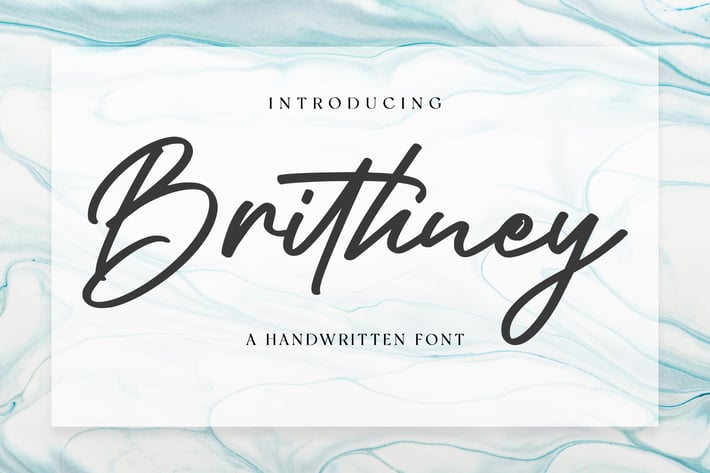
Brithney - Signature Font
Brithney is a lovely and delicate script font that exudes style and class. This font was particularly crafted for those who need a beautiful and refreshing look to their designs.
Modern Handwritten Font
Special Ligatures